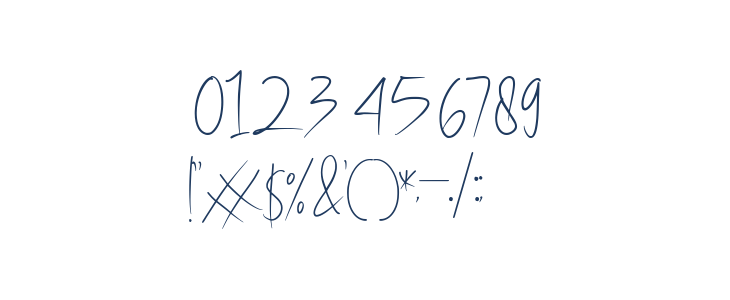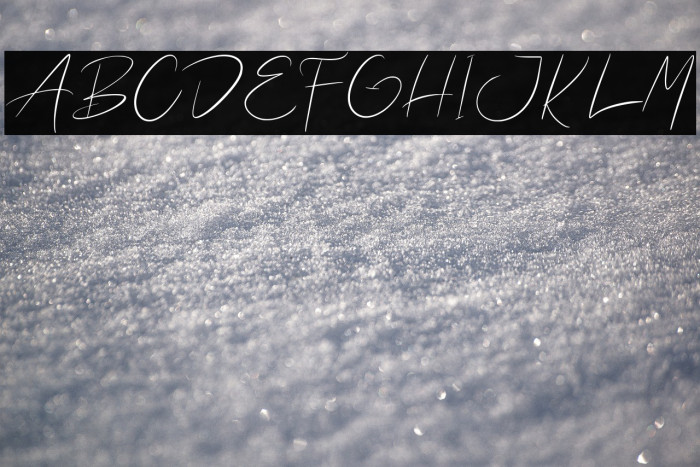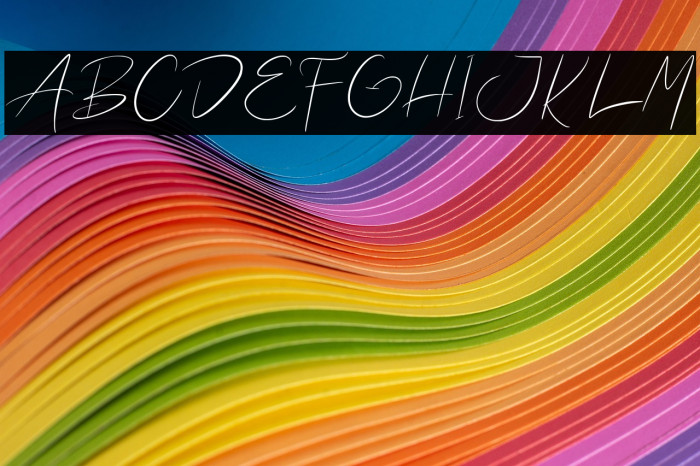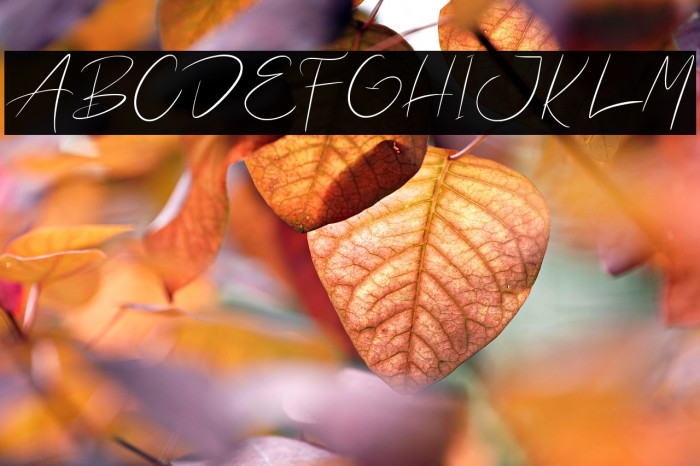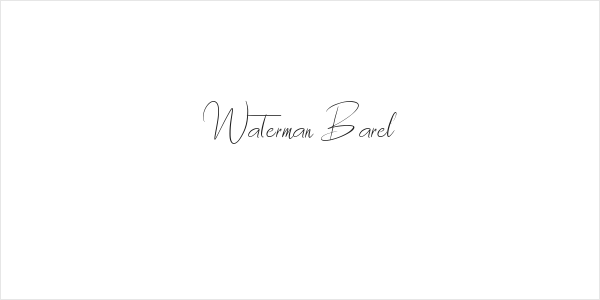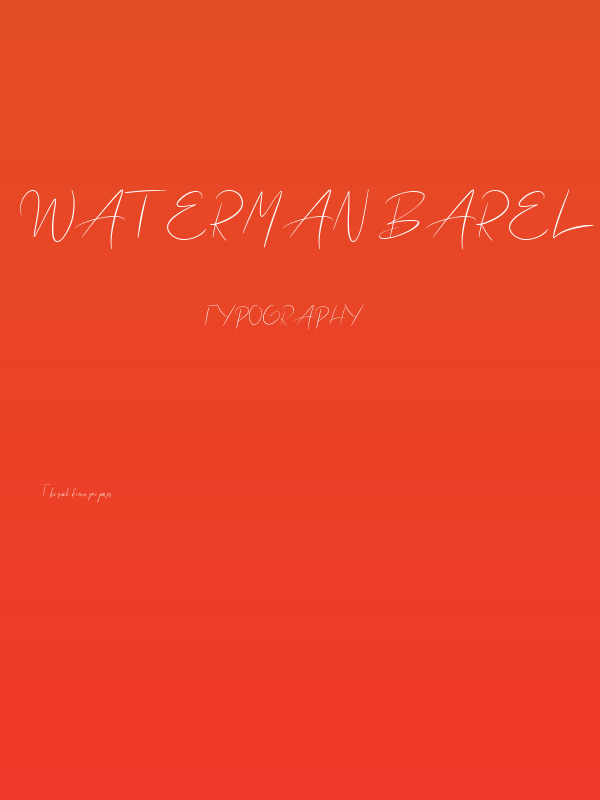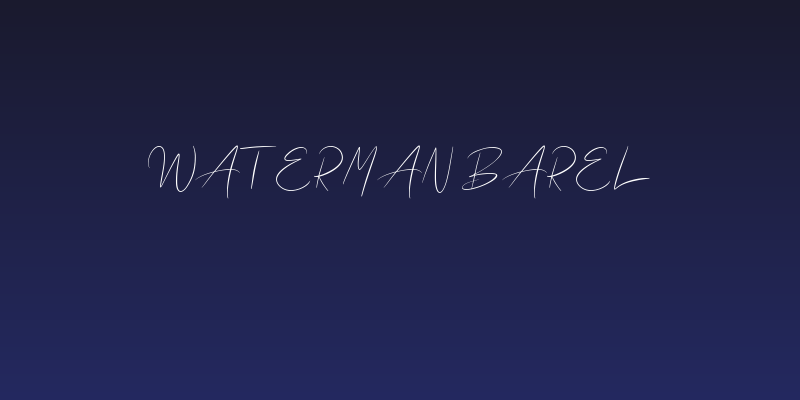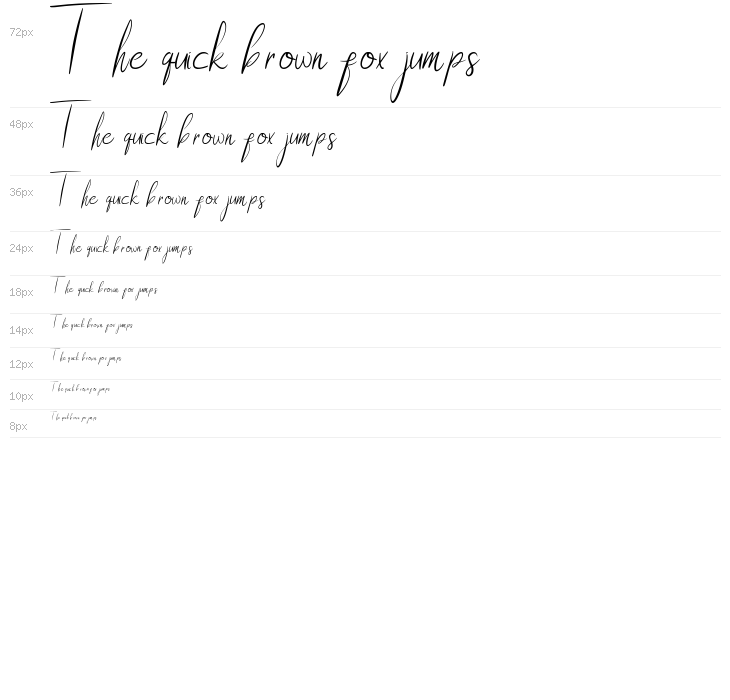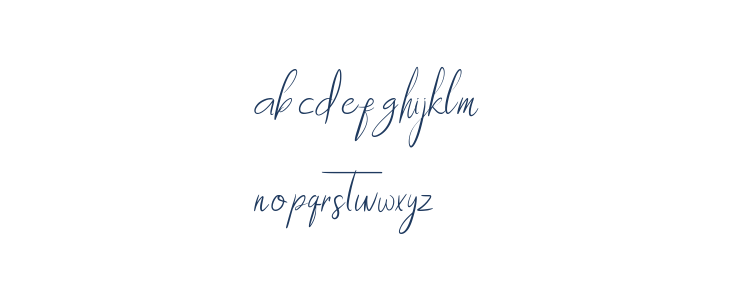
Waterman Barel Font
Waterman Barel Description
This font exudes a graceful and fluid style, reminiscent of elegant handwriting. The uppercase letters are tall and slender, with a slight slant that adds a dynamic flow. The lowercase letters are more intricate, featuring delicate loops and curves that enhance its handwritten appeal. Numbers and special characters maintain the same fluidity, ensuring consistency across all elements. The overall design is airy and light, making it suitable for projects that require a touch of sophistication and personal flair.
| Overall Style | Elegant, Handwritten |
| Proposed Projects | Ideal for wedding invitations, personal stationery, branding projects, and elegant packaging designs. |